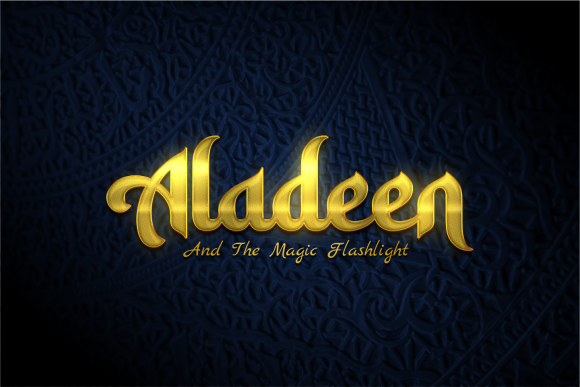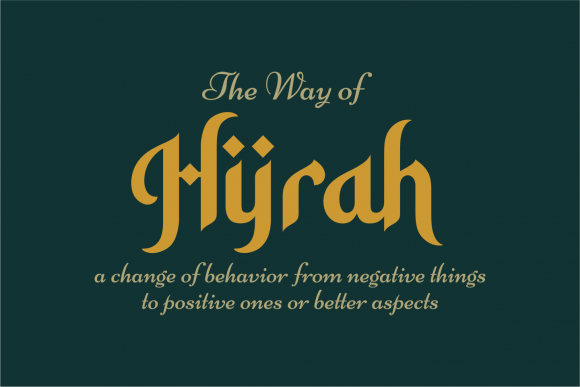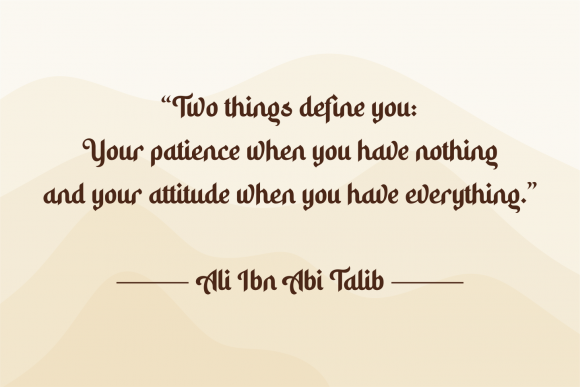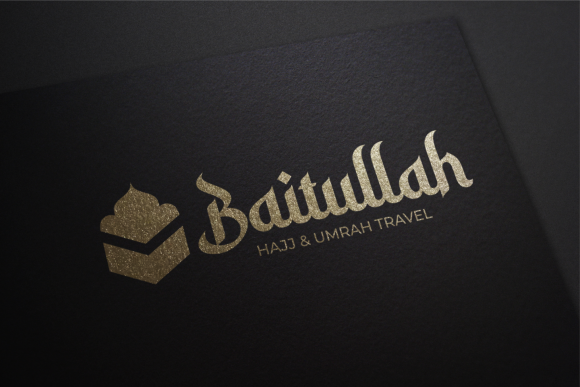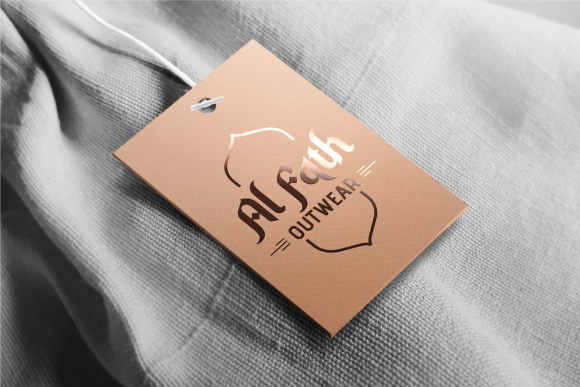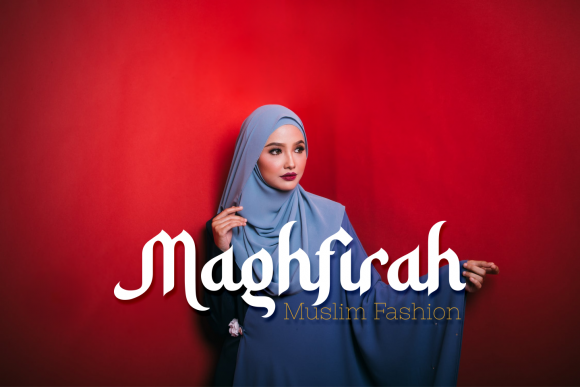
The Designer’s Delight: Unleashing the Power of Hidayatullah Font
I’ll never forget the time I was working on a project for a client who wanted a bold, eye-catching font with an Arabic flair. I scoured the internet, trying out font after font, but nothing seemed quite right. That was until I stumbled upon Hidayatullah Font. This stunning display font has been a game-changer for my designs, and I’m excited to share its awesomeness with you!
So, what makes Hidayatullah Font so special? Let’s dive into the good stuff! 😊
- ✨ Bold and Distinct: Hidayatullah Font is perfect for making a statement. Its bold design ensures your text won’t go unnoticed.
- ✅ Arabic Influences: The font’s Arabic roots add a unique touch, setting it apart from more traditional fonts.
- 💫 Versatile: Whether you’re working on a poster, logo, or social media graphic, Hidayatullah Font adapts effortlessly.
A Few Quirks to Keep in Mind
While Hidayatullah Font is amazing, it’s not without its limitations. Here are a few things to consider:
- 🤔 Legibility at Small Sizes: As with many display fonts, Hidayatullah can be a bit tricky to read at smaller sizes. Be sure to test it out before finalizing your design.
- ⚠️ Limited Use Cases: While versatile, Hidayatullah Font works best for headlines and titles. It might not be the best choice for body text or longer paragraphs.
The Story Behind Hidayatullah Font
While the true story behind Hidayatullah Font remains a mystery, it’s clear that the designer was inspired by the beauty of Arabic calligraphy. With its bold, distinctive design, Hidayatullah Font is a testament to the power of typography to evoke emotions and convey meaning.
| Q: What type of designs is Hidayatullah Font best suited for? | A: Hidayatullah Font is perfect for headlines, titles, and bold statements. It’s ideal for posters, logos, and social media graphics. |
| Q: Can I use Hidayatullah Font for body text? | A: While Hidayatullah Font is stunning, it’s not the best choice for body text or longer paragraphs. Its bold design can be overwhelming for smaller text sizes. |
| Q: Is Hidayatullah Font suitable for digital designs? | A: Absolutely! Hidayatullah Font works beautifully for digital designs, including social media graphics, website headers, and more. |